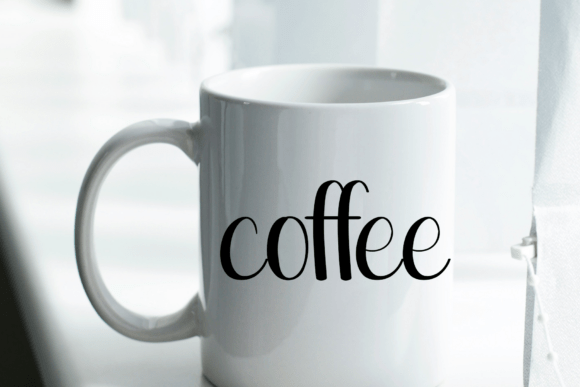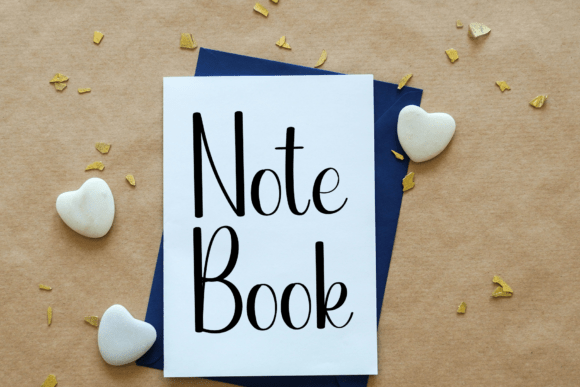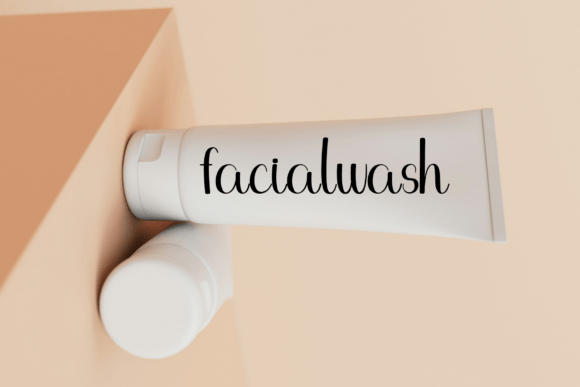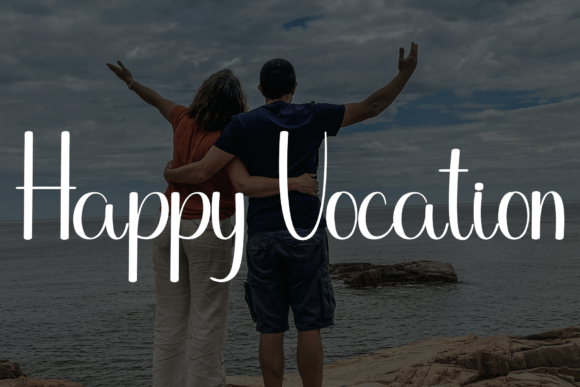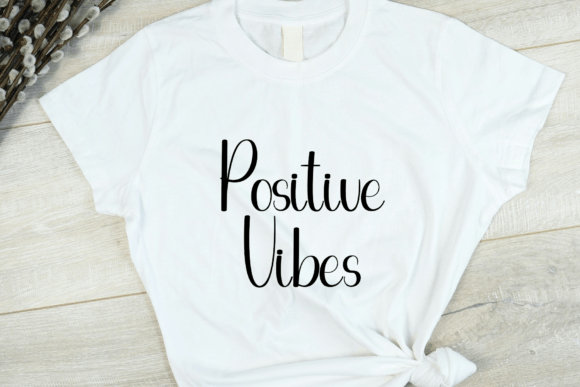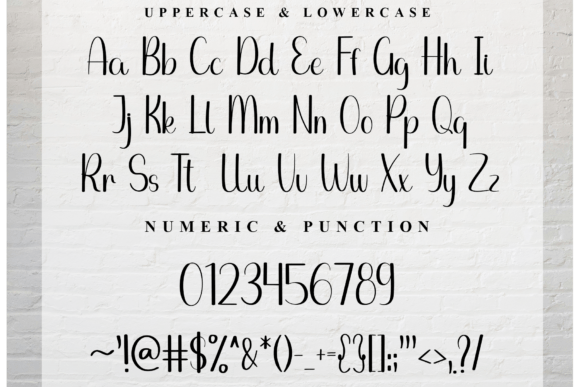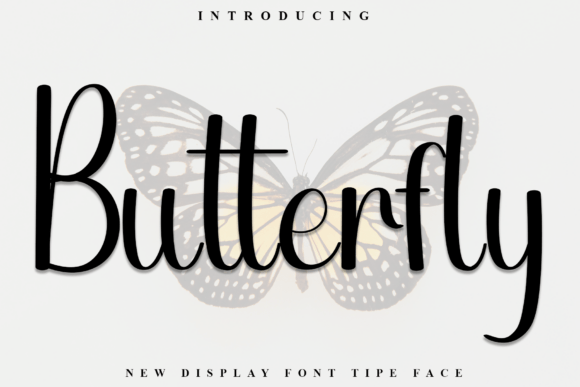
The Butterfly Effect: How a Delightful Font Can Transform Your Designs
I’ll never forget the time I was working on a project for a client’s birthday party invitation. I had the design concept nailed, but something was missing – the perfect font. I scoured the internet, tried out dozens of fonts, but none seemed to capture the playful, whimsical vibe I was going for. That’s when I stumbled upon the Butterfly font. Its charming, hand-drawn aesthetic and round, playful strokes instantly won me over. It was like a breath of fresh air, and I knew I had found the perfect fit for my project.
A Personal Review of Butterfly Font
- ✨ The warm and friendly feel it brings to any design
- ✅ The font’s versatility – it works well for personal projects, invitations, and social media graphics
- 🎉 The unique, hand-drawn aesthetic that adds a fun touch to any design
While I absolutely adore the Butterfly font, there are a few minor quirks to be aware of. For instance, ⚠️ some users have reported issues with kerning, which can be easily adjusted in certain design software. Additionally, 🤔 the font may not be suitable for very formal or professional projects, as its playful nature may not align with the tone you’re trying to convey.
The Butterfly font was designed with the intention of creating a warm and friendly font that would bring a touch of whimsy to any design. The designer, inspired by the beauty of nature and the playfulness of hand-drawn typography, crafted a font that would be perfect for personal projects, invitations, and social media graphics.
| What is the Butterfly font best suited for? | The Butterfly font is perfect for personal projects, invitations, and social media graphics that require a playful, whimsical touch. |